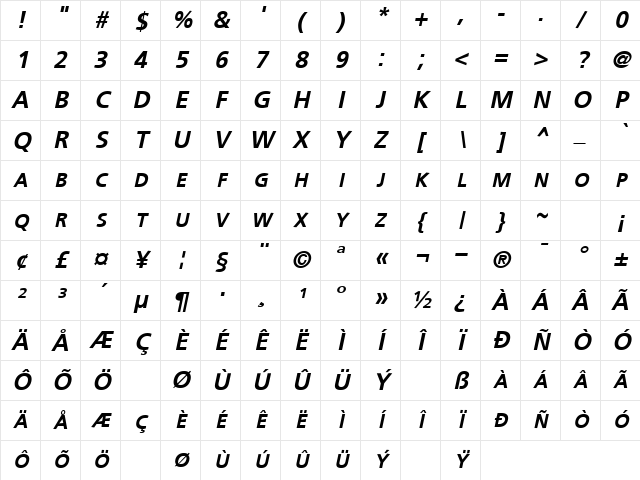
VirtueExpert is a composed and adaptable typeface that performs quietly and consistently across a wide range of design contexts. The slanted form adds forward momentum and visual energy. Its bold stroke weight gives it real presence on the page.
Pro Tip: Use VirtueExpert for emphasis, pull quotes, and subheadings where its slanted energy can add rhythm to the layout.